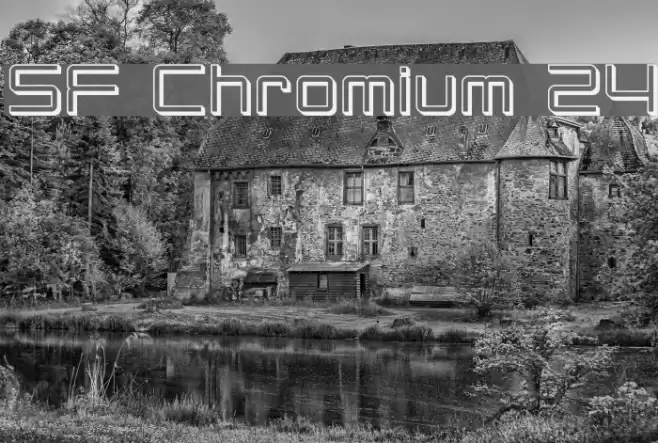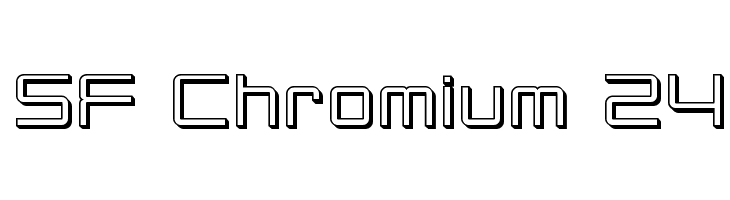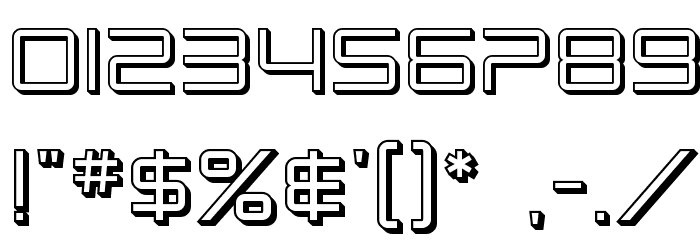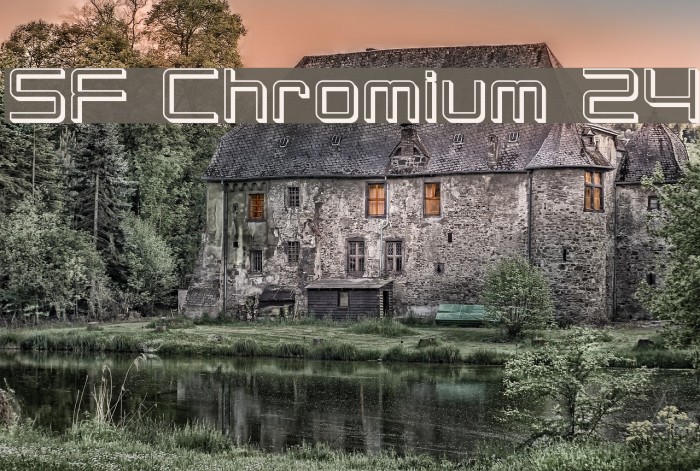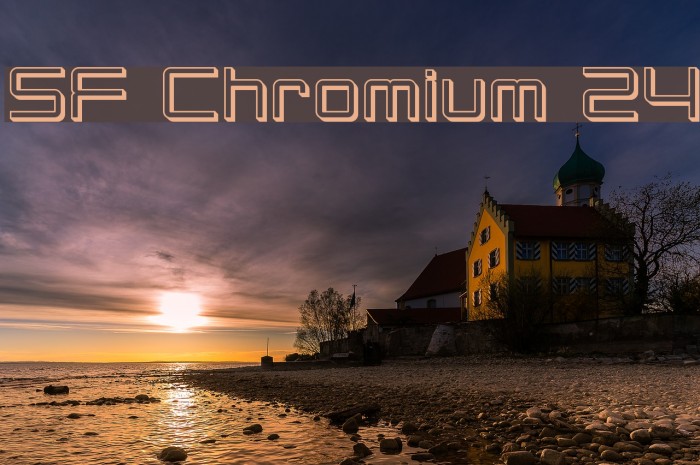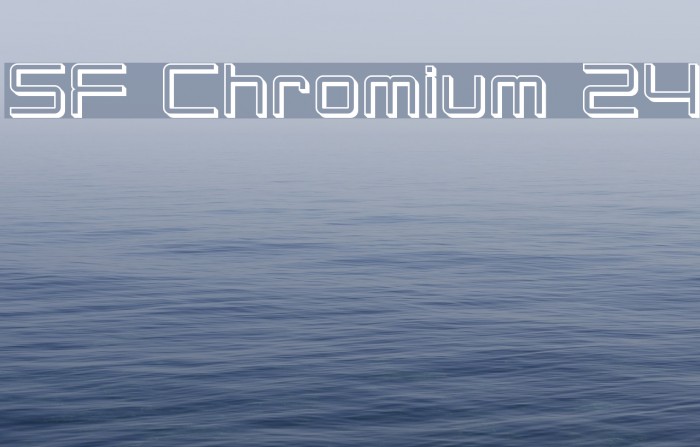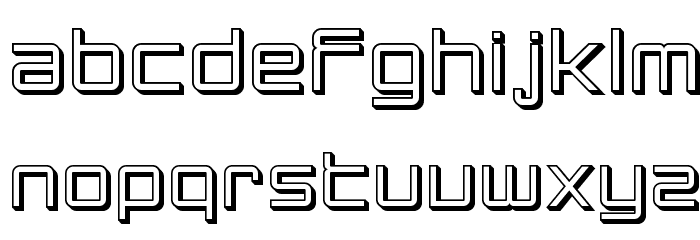
SF Chromium 24 Font
SF Chromium 24 Description
This font features a futuristic and geometric design with a distinct outline style. Each character is crafted with precision, showcasing a uniform thickness that gives it a sleek and modern appearance. The uppercase and lowercase letters maintain a consistent height and width, contributing to a balanced and cohesive look. The numerals and special characters are designed to match the overall aesthetic, ensuring versatility across various applications. The font's clean lines and angular shapes make it ideal for projects that require a contemporary and tech-inspired feel.
A futuristic, geometric outline font with a sleek and modern design from 3D fonts.
- Proposed Projects: Ideal for tech branding, sci-fi themed designs, video game interfaces, and modern advertising.